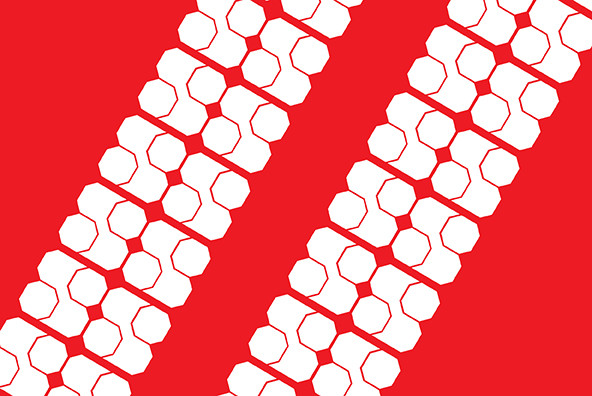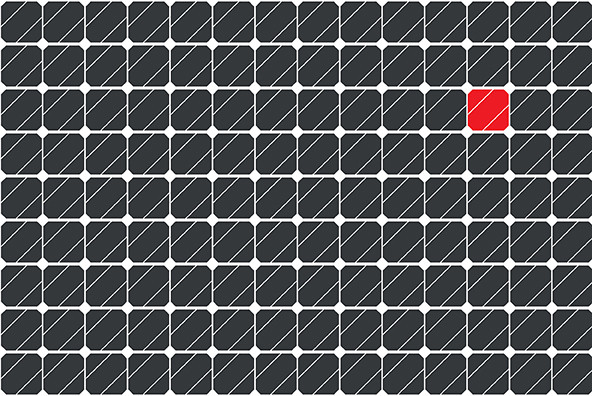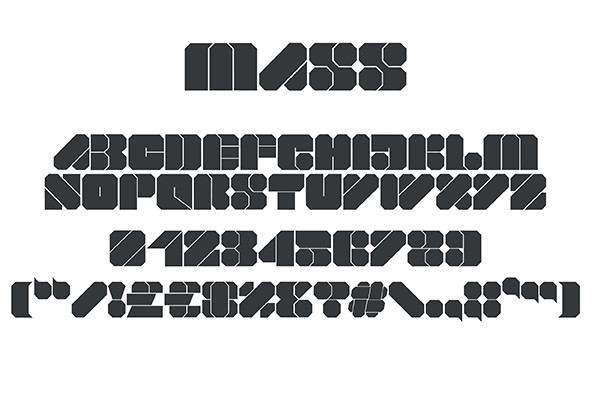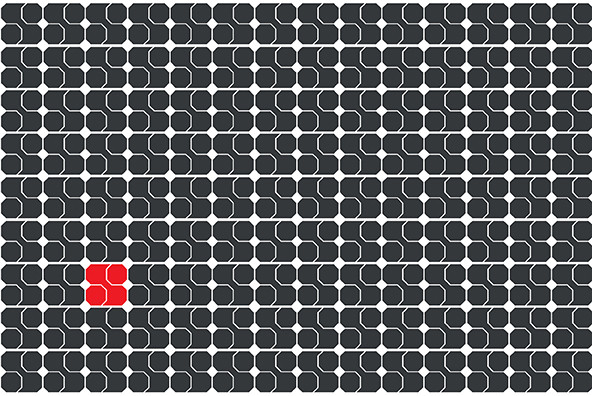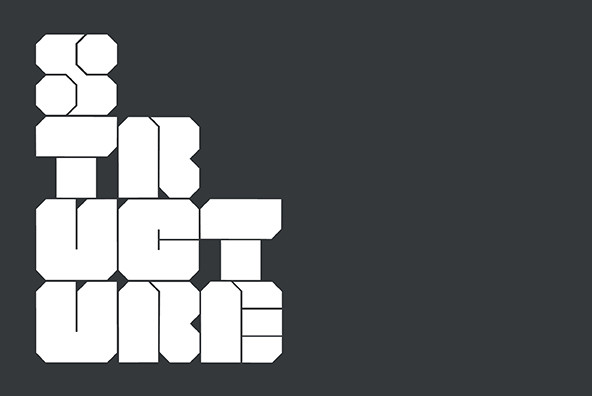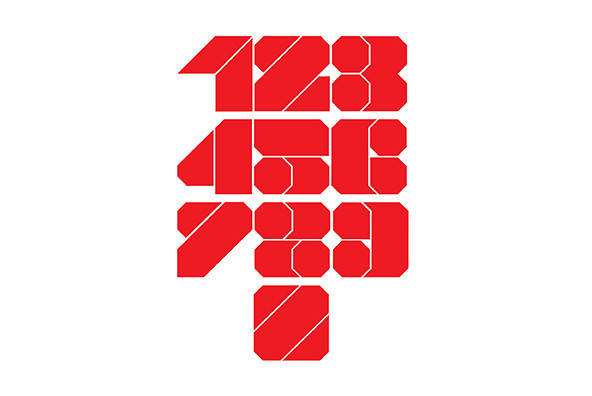
MASS is the first typeface from the Little Fonts type foundry. The super heavy stencil is intended to grab the attention of the audience before they stop to read the text. The typeface is designed using a simple set of rules inspired by geometric patterns. This use of pattern within MASS creates dynamic negative space when the type is set. Intended for use at large sizes, MASS is ideal for large format display work wherever you need a hard hitting font that stands out amongst the crowd.